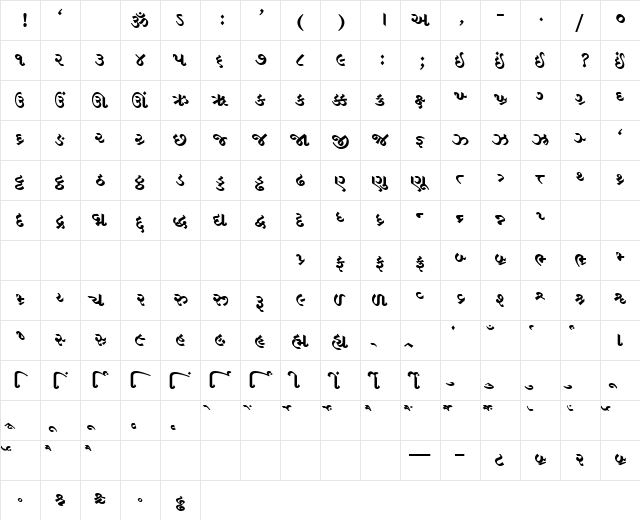
AkrutiGujFalguni Bold Font Preview
AkrutiGujFalguni Bold
AkrutiGujFalguni Bold Font Details
Design Context for AkrutiGujFalguni Typeface
AkrutiGujFalguni takes a measured approach to typography — its balanced proportions and neutral character make it a reliable workhorse for both digital and print work. Its bold stroke weight gives it real presence on the page.